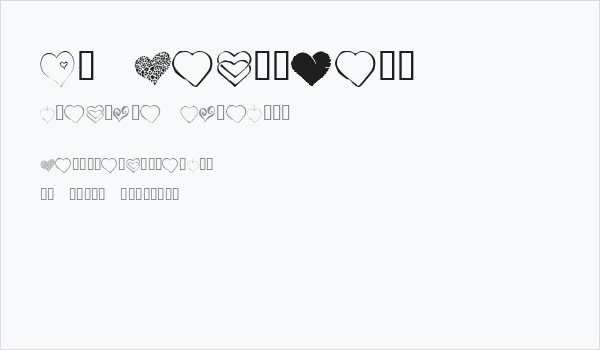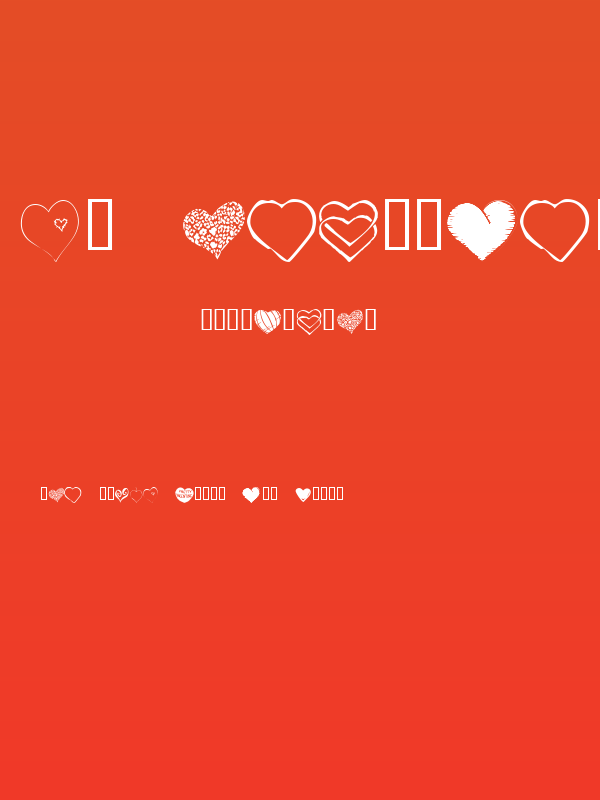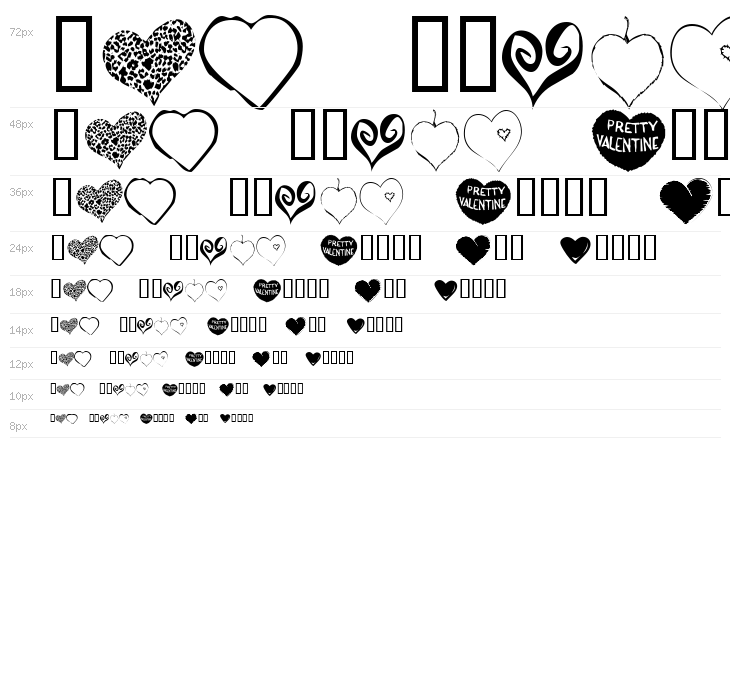
KR Heartfelt Font
KR Heartfelt Description
This design is a decorative collection of heart-themed symbols, each with a unique pattern or design inside. The hearts vary in style, featuring elements like stripes, lace, and solid fills. Some hearts contain additional decorative elements such as swirls or text, making them ideal for romantic or festive themes. The overall appearance is playful and artistic, with each symbol offering a distinct visual appeal. These designs are perfect for adding a touch of love and creativity to any project, particularly those related to Valentine's Day or romantic occasions.
| Use Case | Logos, Decorative elements |
| Proposed Projects | Ideal for Valentine's Day cards, romantic invitations, festive decorations, and creative art projects. |